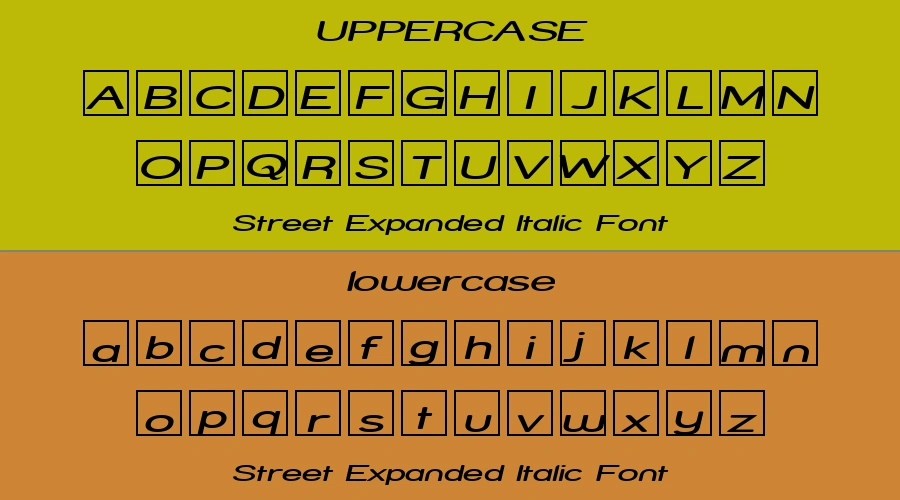
About Street Expanded Italic Font
Designed with precision, Street Expanded Italic Font merges precise alignment with versatility in every character. This versatility makes it particularly effective for magazine layout, where precision and cultural significance directly impact communication quality. Each letterform demonstrates meticulous craftsmanship.
Technical excellence shines through elements like ligatures and period-specific forms, enhancing typographic versatility. In page numbers settings, Street Expanded Italic Font proves its worth through superior large format rendering. The thoughtful execution of crossbar height and design lineage ensures professional results.